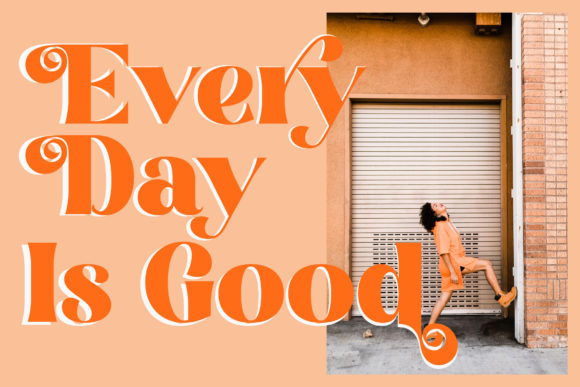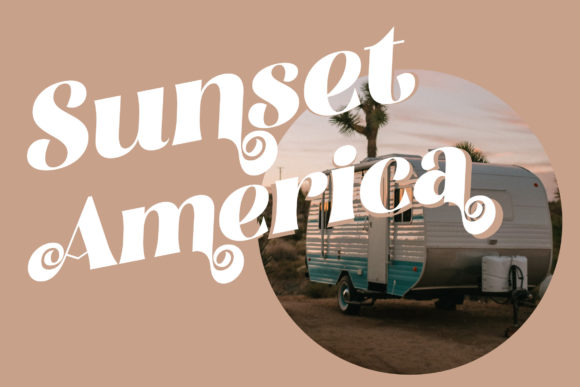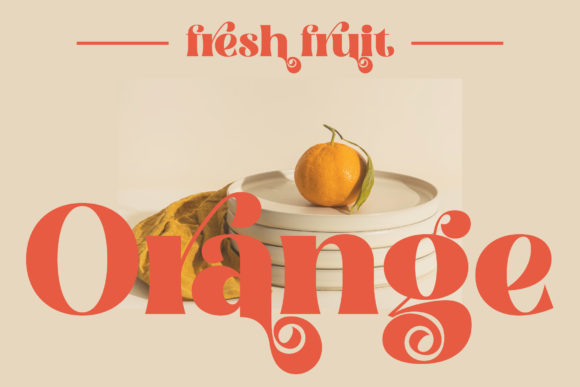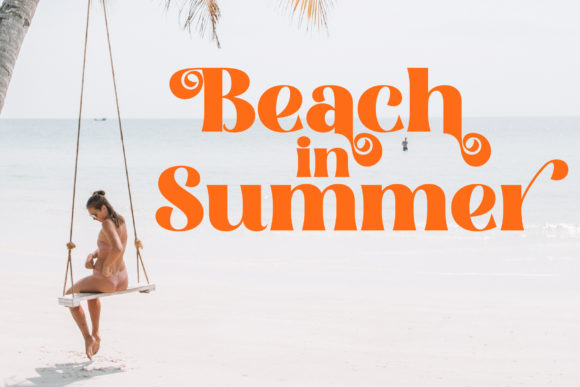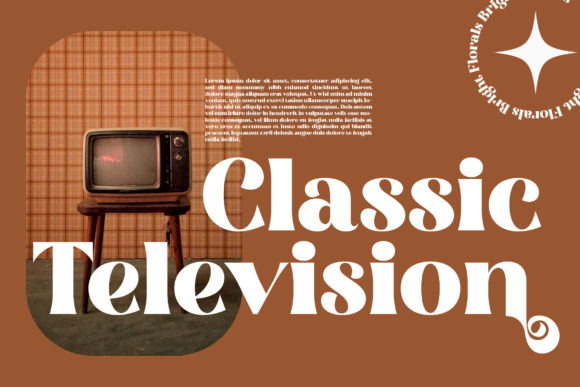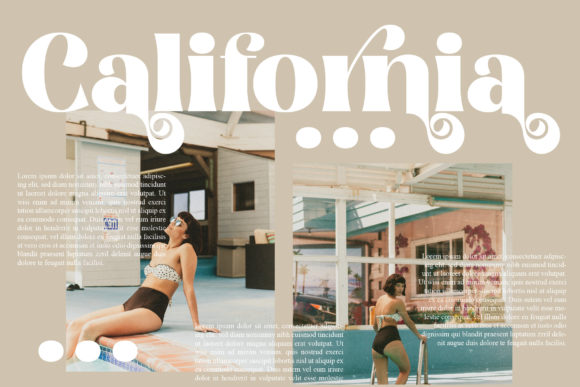
Unlock the Beauty of Hand-Drawn Typography
Have you ever been scrolling through your social media feed, and a beautiful font catches your eye, making you pause and take a second look? That’s exactly what happened to me when I stumbled upon the stunning Florals Bright Font. Its elegant and whimsical style instantly drew me in, and I knew I had to learn more about it.
Florals Bright Font is a chic and trendy serif font that’s perfect for adding a touch of sophistication to your designs. With its PUA encoding, you’ll have access to all the glyphs and swashes, allowing you to create unique and eye-catching typography. Whether you’re a graphic designer, illustrator, or simply a creative enthusiast, this font is sure to elevate your projects and leave a lasting impression.
Key Features of Florals Bright Font
- Unique Characteristics: Unique floral patterns and intricate designs, perfect for creating eye-catching headings and titles
- Font Style: Elegant, ornate, and whimsical, suitable for various design applications, including branding, packaging, and editorial content
Florals Bright Font Review
Florals Bright Font is a playful, eye-catching font that’s perfect for adding a touch of whimsy to your designs. Here are some things that work well:
- ✨ Unique and creative design that’s sure to grab attention
- ✨ Great for titles, headings, and other text elements where you want to make a statement
- ✨ Comes in a range of colors and styles to match your brand’s personality
- ⚠️ May be overwhelming if used as the primary font for large blocks of text
- ⚠️ Can be difficult to read at small font sizes, so use with caution
- ⚠️ Limited versatility for more formal or professional designs
Overall, I think Florals Bright Font is a great addition to any designer’s toolkit. It’s perfect for projects where you want to add a touch of fun and creativity. Just be sure to use it thoughtfully and balance it with other fonts to avoid overwhelming the design.
Florals Bright Font is ideal for:
Branding and marketing materials
Event graphics and signage
Any design project that requires a touch of elegance and sophistication.